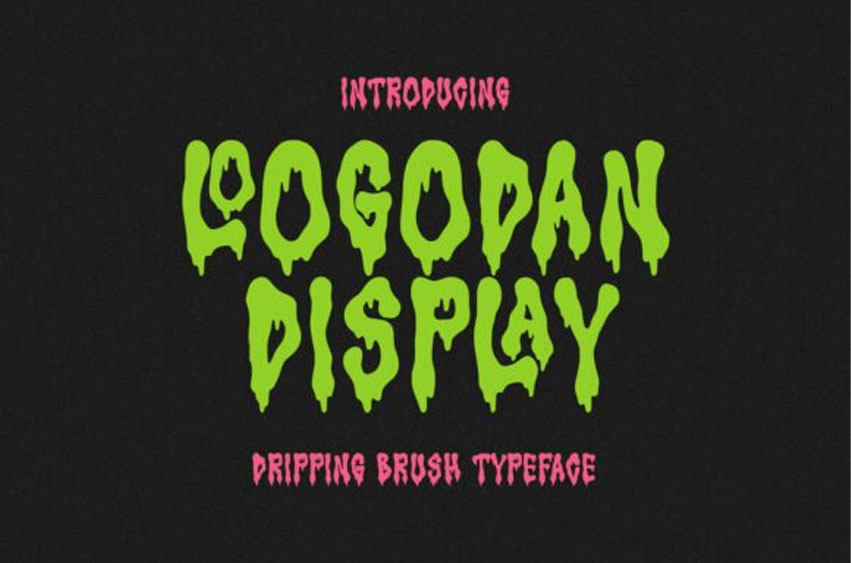
Loogodan Font
Loogodan Font is an attention-grabbing, all-caps typeface with a dramatic, dripping brush style, perfect for creating a spooky, grungy, or playful horror aesthetic.
Its bold, hand-drawn look features heavy, melted, or slime-like drips extending from the characters, making it ideal for impactful headlines, events, logos, and products, especially for themes related to Halloween, horror movies, monster themes, or edgy street fun art.